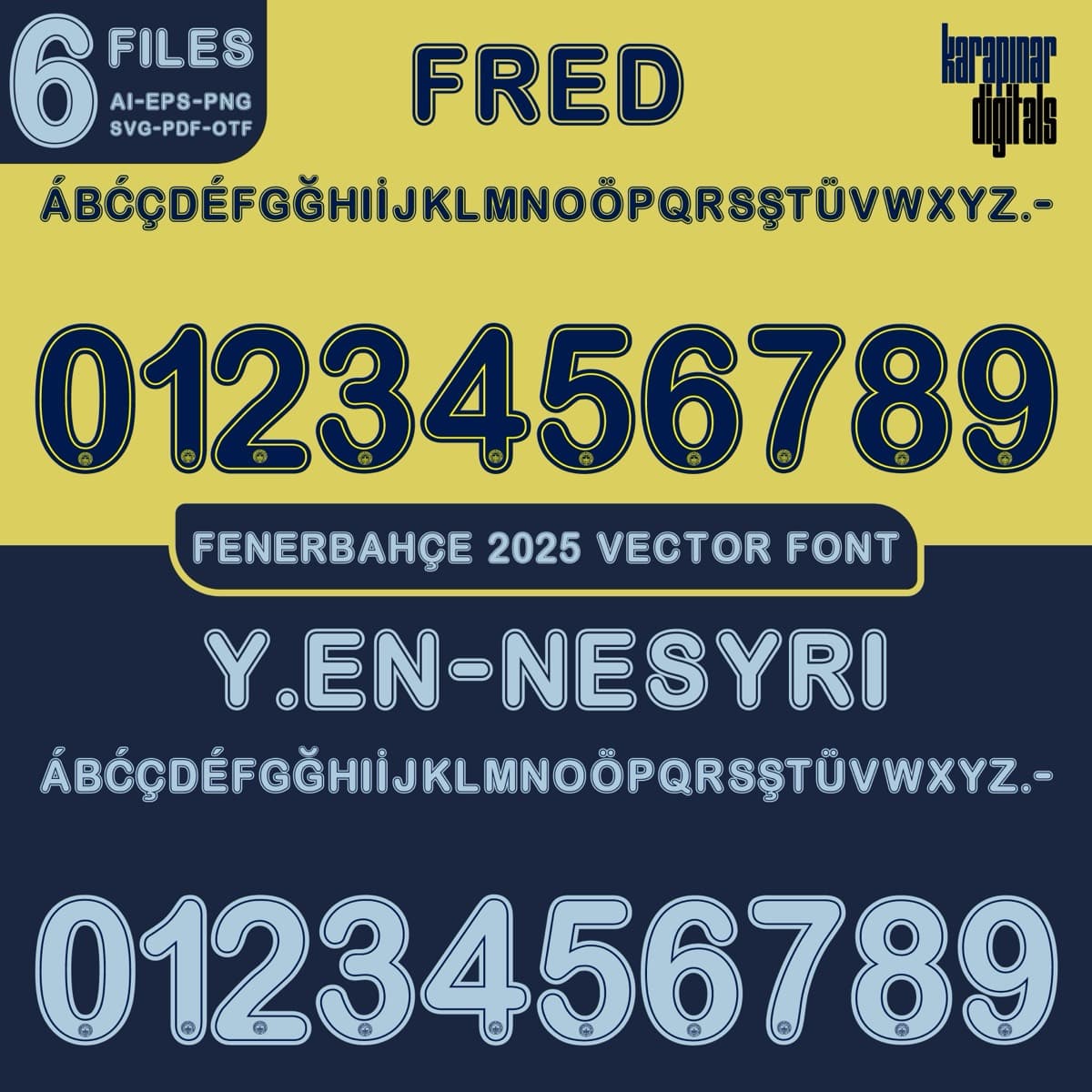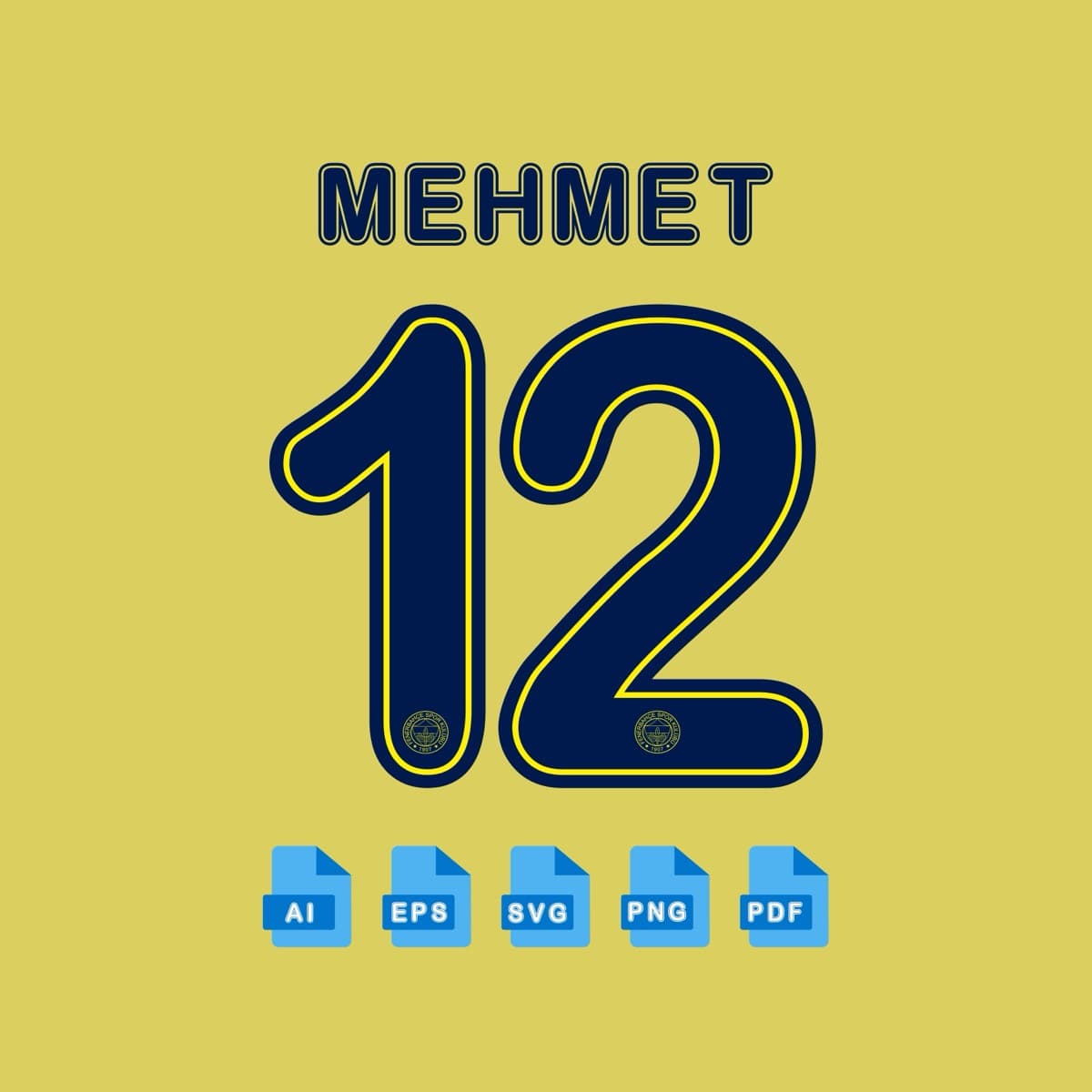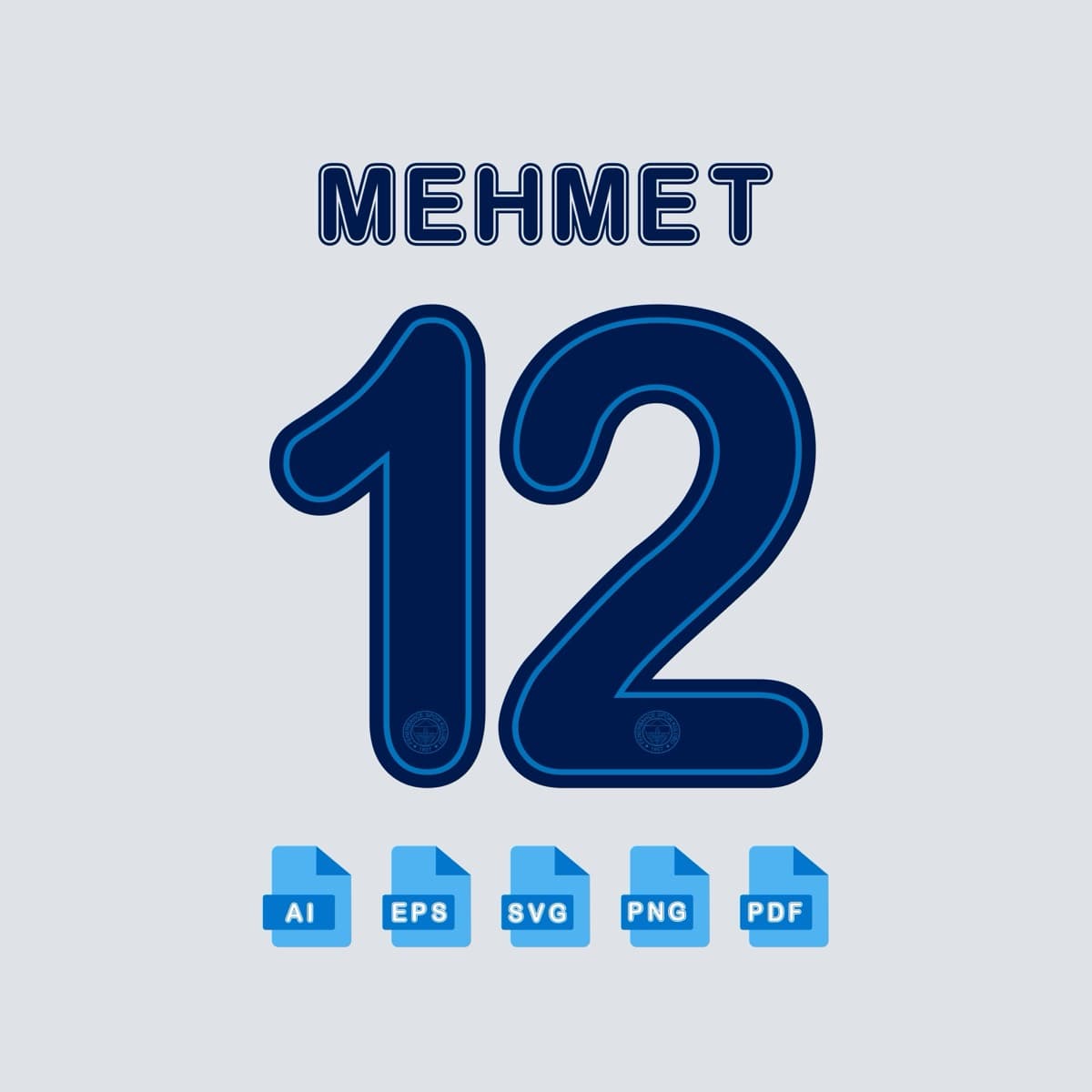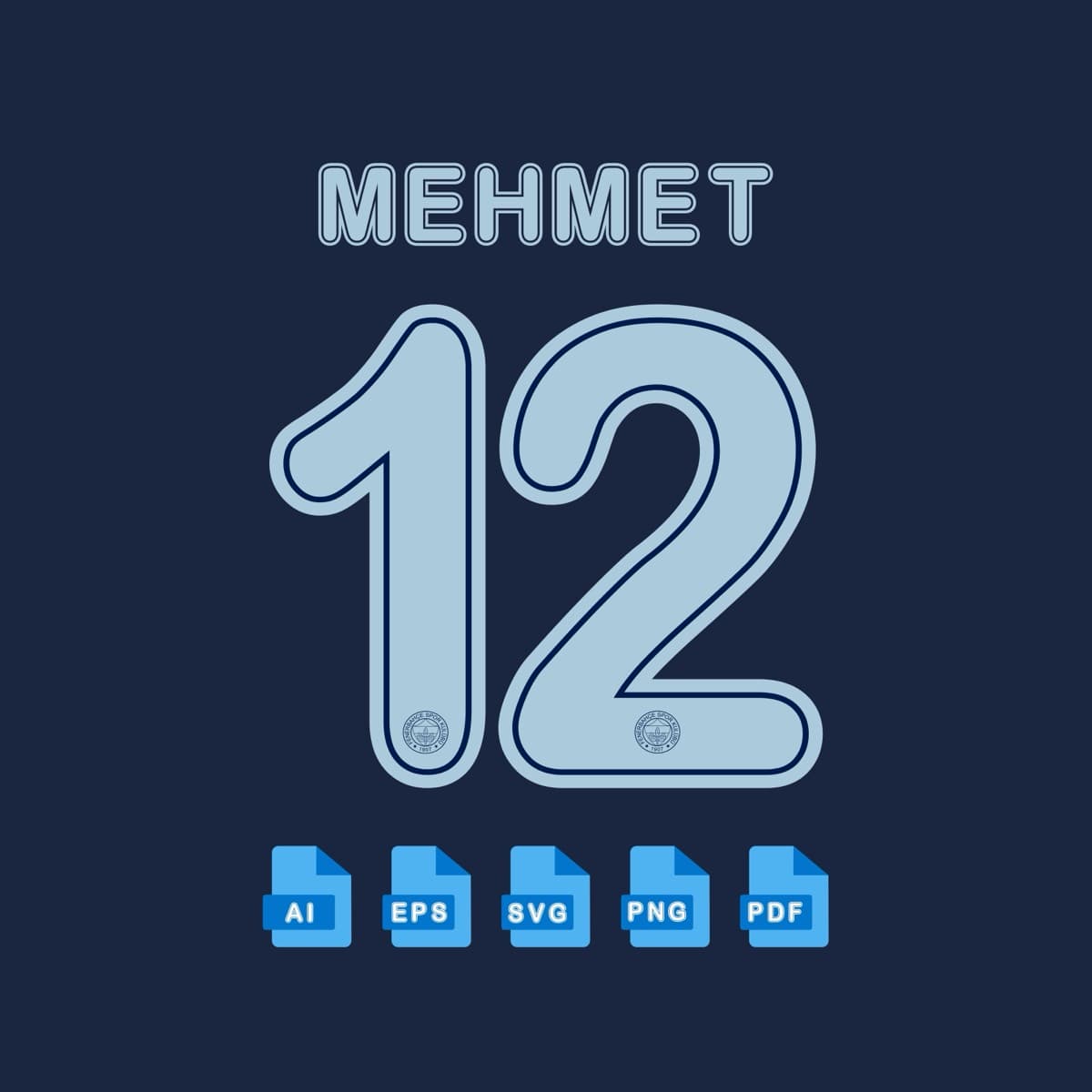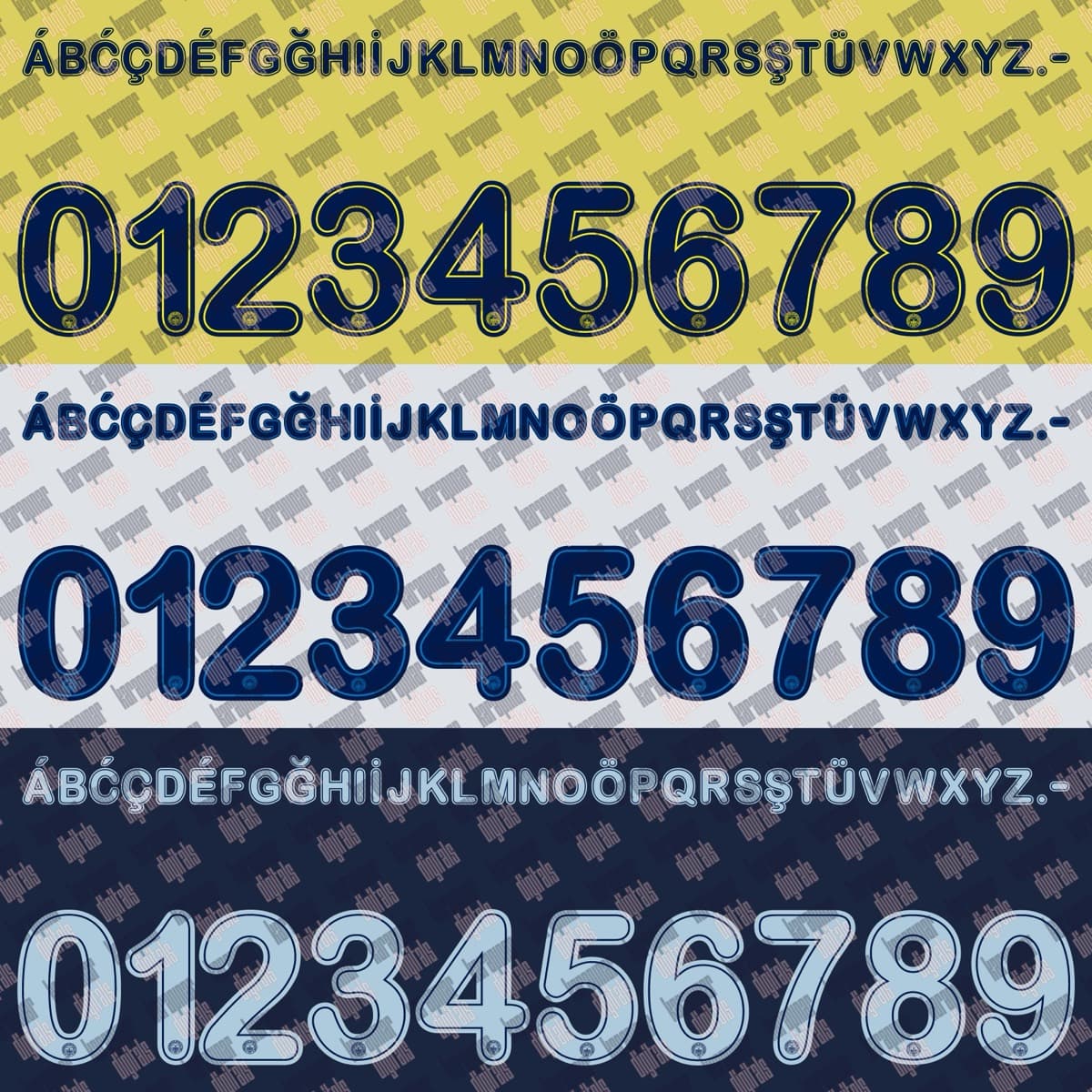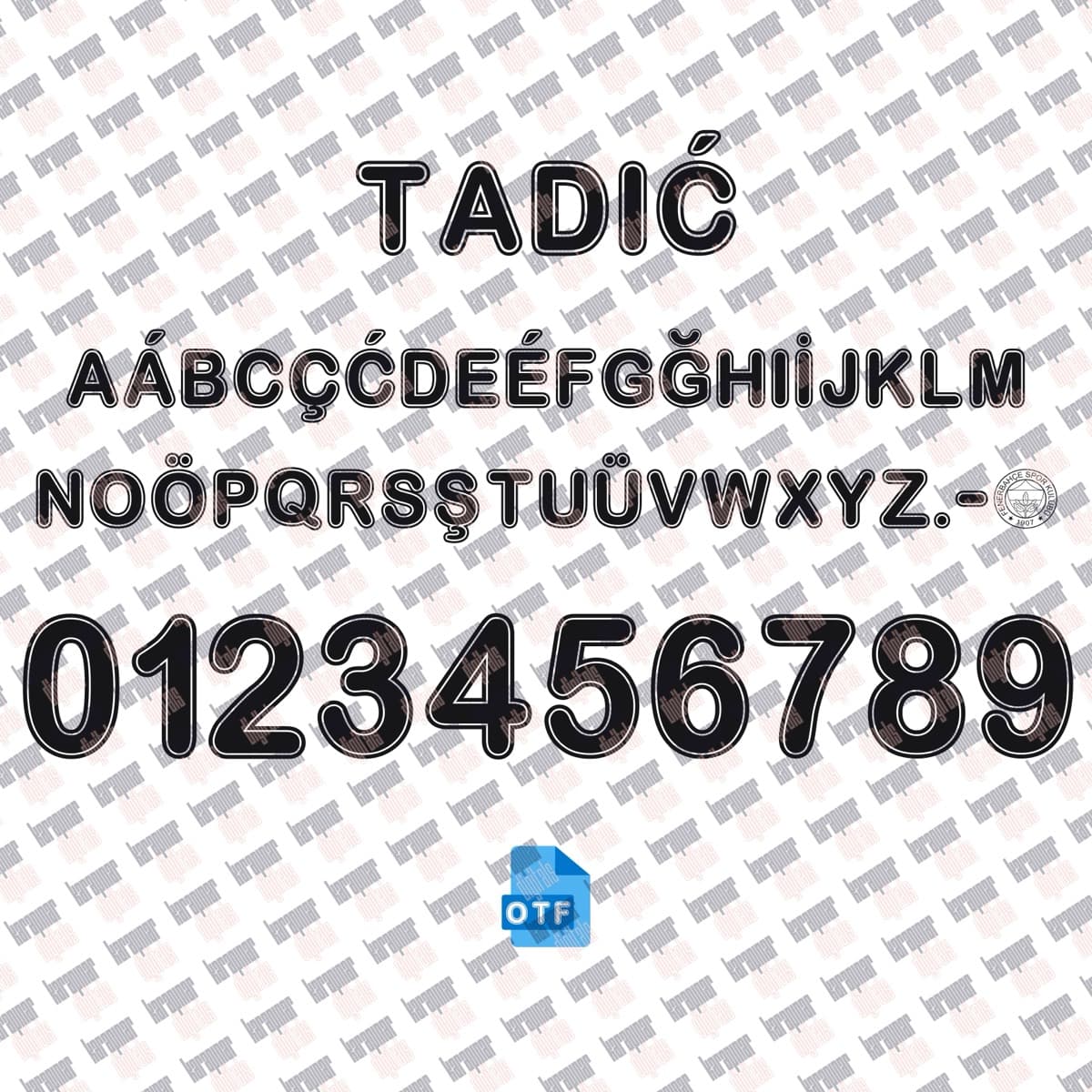
Fenerbahçe 2025 football jersey font for Fenerbahçe — vector letters and numbers preview
Fenerbahçe 2025
Fenerbahçe · 2025 · 2 variants
Fenerbahçe 2025
A set inspired by the Fenerbahçe 2025 jersey typography, with a name and number system redrawn for print and screen. Original curves, consistent weight and a complete 0–9 numeral family.
Jersey sets focus on uppercase + numerals; the glyph map shows exactly what this set includes.